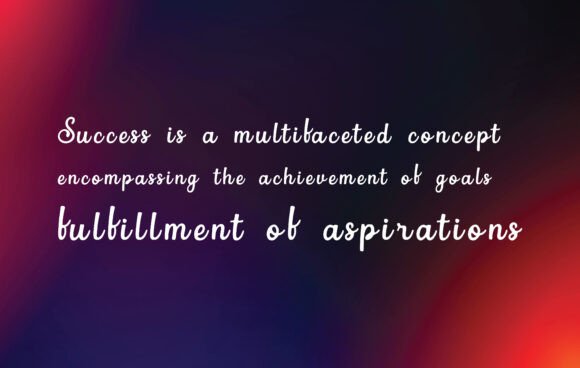
Discover the Beauty of Barrett Font: Elevate Your Designs with this Lovely Handwritten Font
Are you a designer or crafter looking for a font that can take your creative ideas to the next level? Look no further than Barrett Font, a lovely and beautiful handwritten font that is sure to impress. With its unique and elegant style, Barrett Font is the perfect choice for creating eye-catching logos, branding, and quotes that will leave a lasting impression on your audience.
The Characteristics of Barrett Font
Barrett Font is a handwritten font that exudes a sense of sophistication and charm. Its flowing lines and delicate curves give it a feminine touch, making it ideal for designs that require a personal and elegant feel. The font is highly legible, even at small sizes, making it versatile for use in a variety of applications, from business cards to billboards.
One of the standout features of Barrett Font is its ability to add a touch of warmth and personality to any design. Its handwritten nature gives it a human feel, making it perfect for designs that require a personal touch. Whether you’re creating a logo, branding materials, or social media graphics, Barrett Font is sure to bring a level of sophistication and elegance to your designs.
Why Choose Barrett Font?
So, why choose Barrett Font over other fonts? Here are just a few reasons why this lovely handwritten font stands out:
- Unique and Elegant Style: Barrett Font has a unique and elegant style that sets it apart from other fonts. Its flowing lines and delicate curves give it a sophisticated and charming feel that is sure to impress.
- Highly Legible: Despite its elegant style, Barrett Font is highly legible, even at small sizes. This makes it versatile for use in a variety of applications, from business cards to billboards.
- Perfect for Logos and Branding: Barrett Font is perfect for creating eye-catching logos and branding materials. Its unique and elegant style makes it ideal for businesses that want to stand out from the crowd.
How to Use Barrett Font in Your Designs
Using Barrett Font in your designs is easy. Here are just a few tips to get you started:
- Pair it with Other Fonts: Barrett Font pairs well with other fonts, such as sans-serif fonts like Arial or Helvetica. Experiment with different font combinations to find the perfect look for your design.
- Use it for Headlines and Titles: Barrett Font is perfect for headlines and titles. Its elegant style makes it ideal for creating eye-catching headings that will grab the attention of your audience.
- Add a Personal Touch: Barrett Font is perfect for adding a personal touch to your designs. Use it to create handwritten-style notes or quotes that will add a level of warmth and personality to your designs.
In conclusion, Barrett Font is a lovely and beautiful handwritten font that is sure to take your creative ideas to the highest level. Its unique and elegant style makes it perfect for creating eye-catching logos, branding, and quotes that will leave a lasting impression on your audience. Whether you’re a designer or crafter, Barrett Font is a must-have font that is sure to become a staple in your design toolkit.